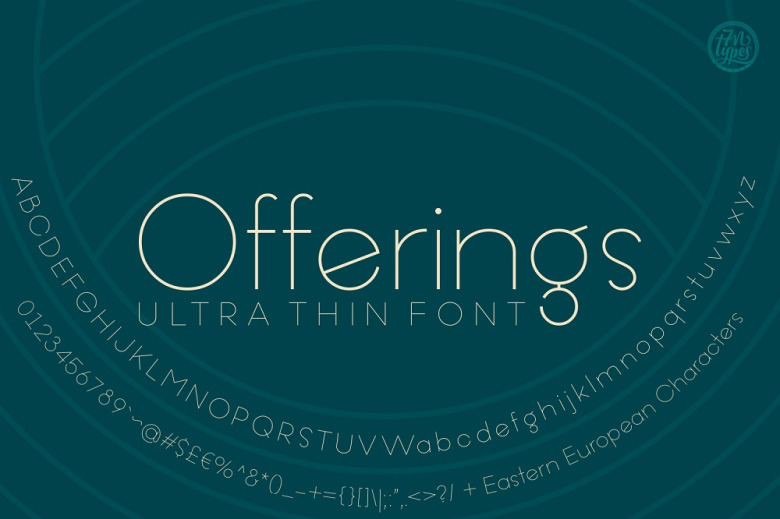
Offerings Font
Offering is an ultra thin, circle based sans serif font. It is designed smoothly using monoline circle shape to make it looks and feels elegant.
Offerings Sans Serif Font